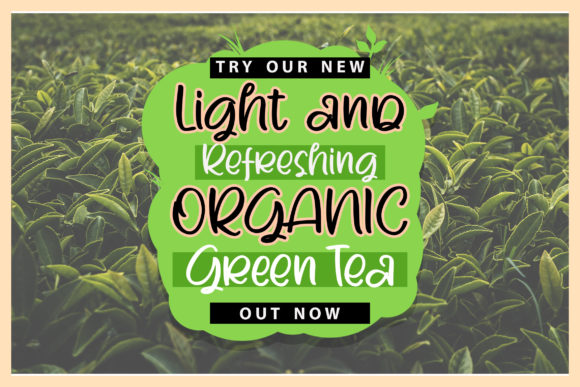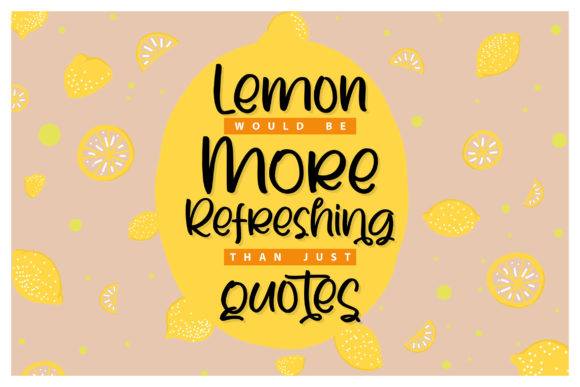
Mellany Writes Font
db-ku.com - Script & Handwritten -- Mellany Writes is a delicate and stylish script font. Fall for its ravishing style and use it to create gorgeous designs. This font is PUA encoded which means you can access all glyphs and swashes with ease!